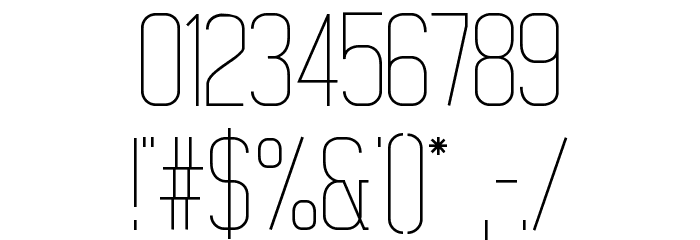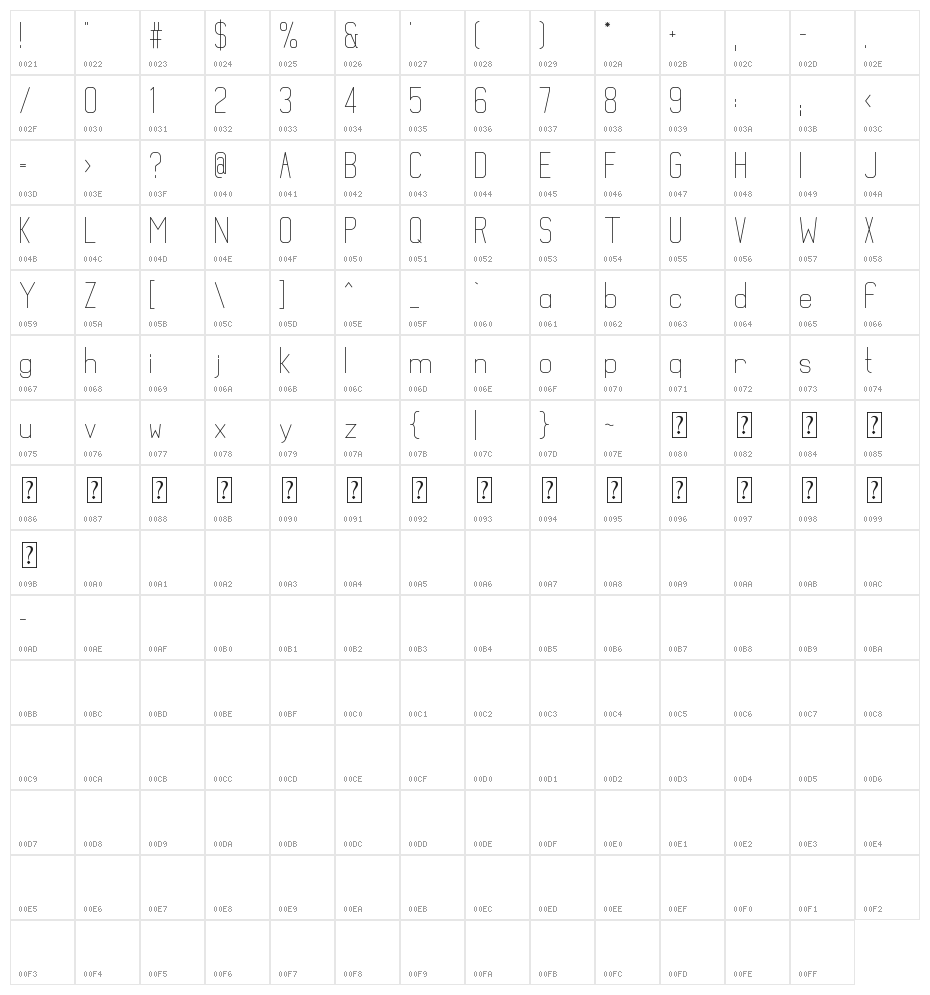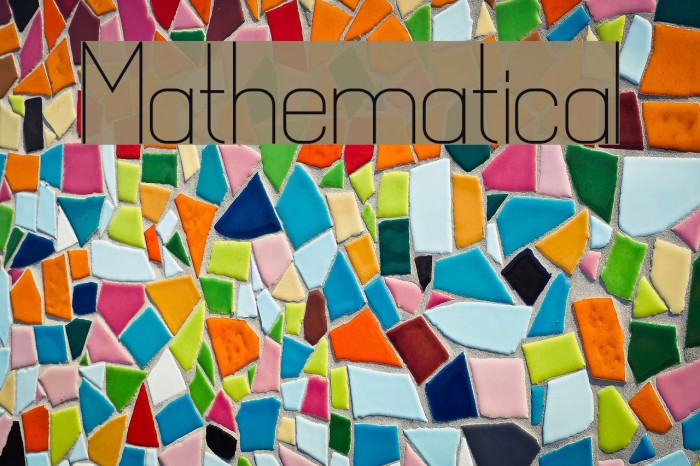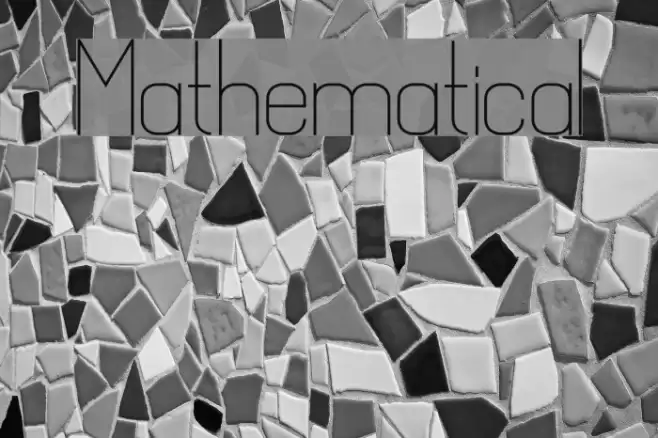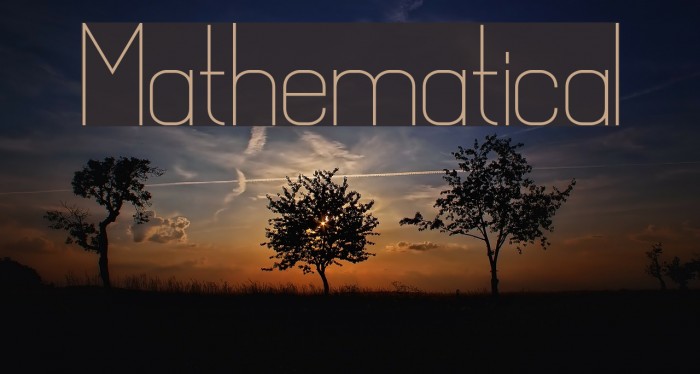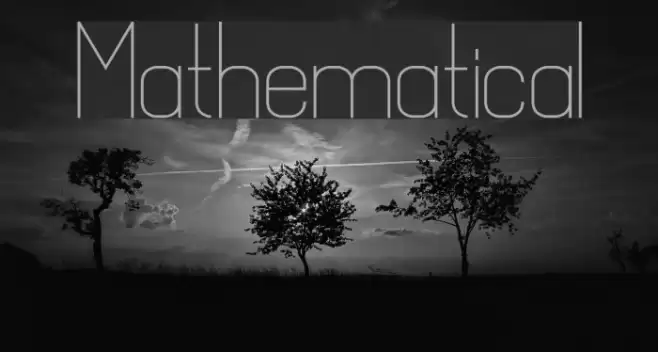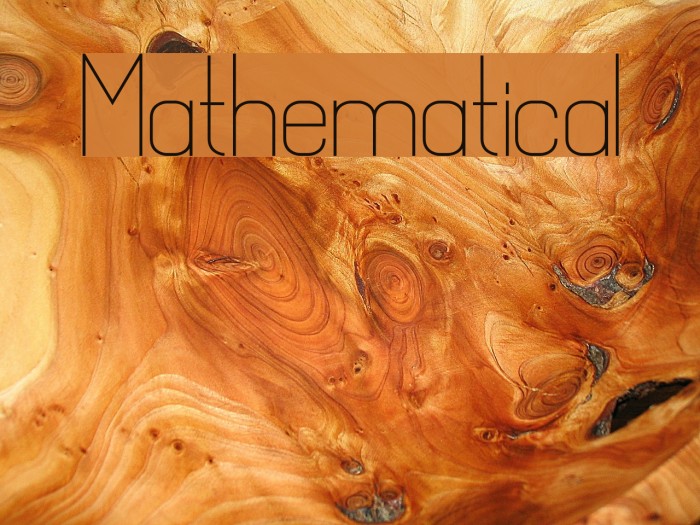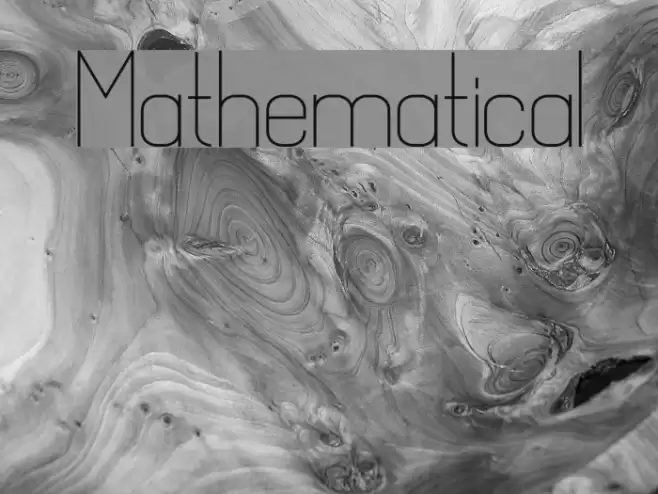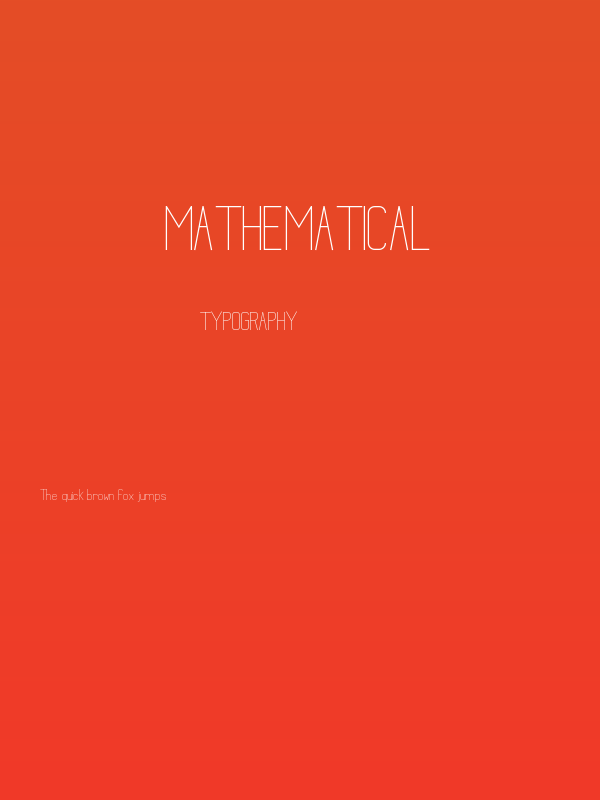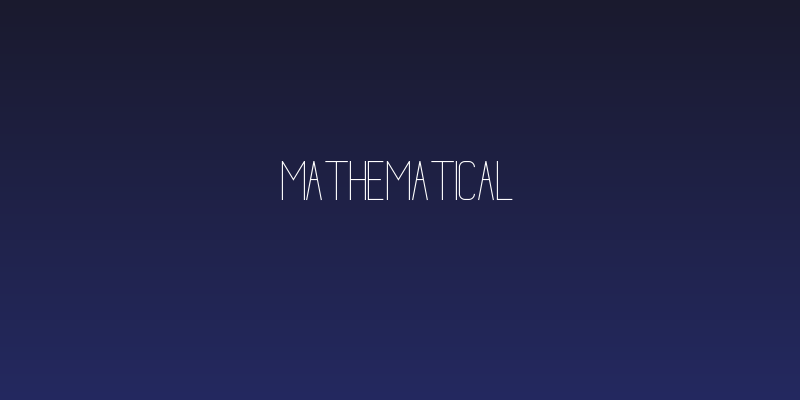
Mathematical Font
Mathematical Description
This font features a geometric and modern design with thin, elongated letterforms. The characters are constructed with clean, straight lines and minimal curves, giving it a sleek and contemporary appearance. The uppercase and lowercase letters maintain a consistent height and width, creating a uniform look. The numerals and special characters follow the same design principles, ensuring a cohesive style throughout. The font's simplicity and clarity make it suitable for various design applications where a modern and minimalist aesthetic is desired.
| Proposed Projects | Ideal for modern branding, tech-related designs, minimalist posters, and editorial layouts. |